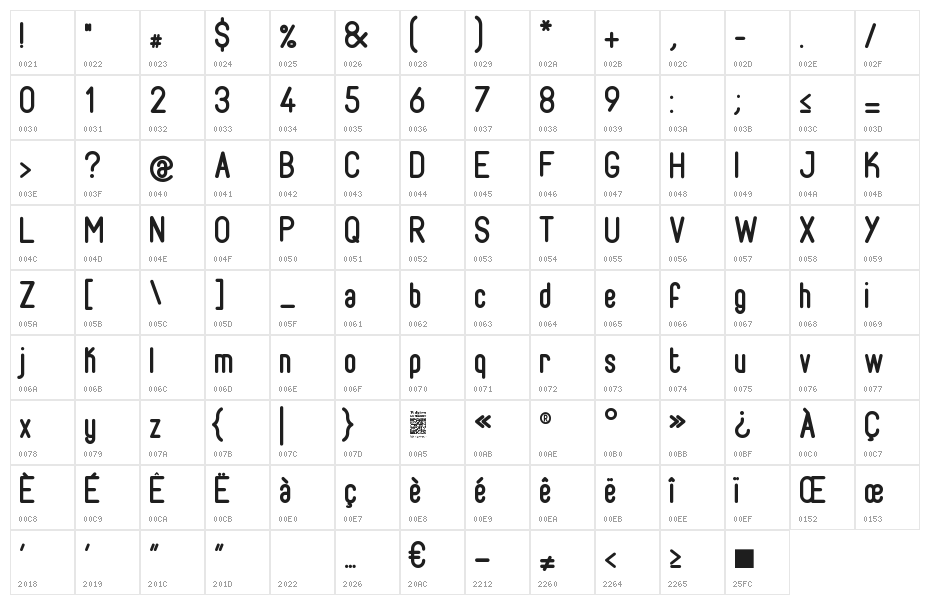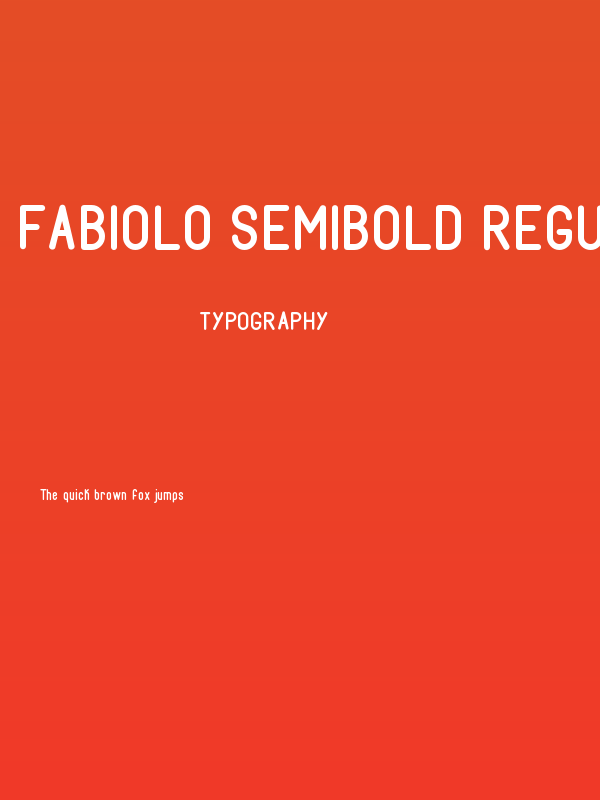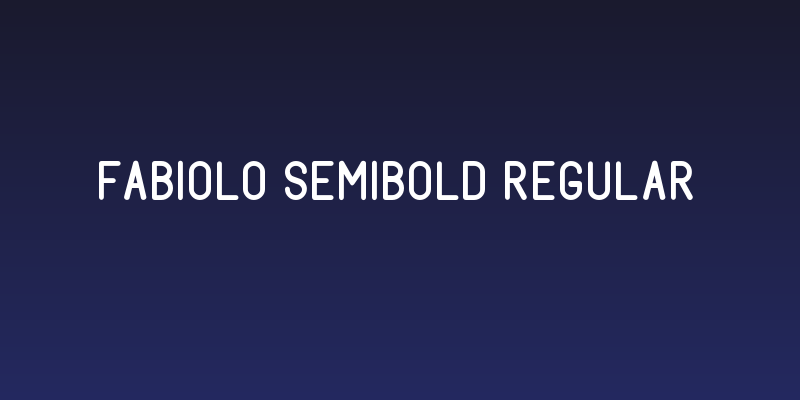
Fabiolo Semibold Regular Font
Fabiolo Semibold Regular Description
This font features a clean and modern sans-serif design with rounded edges, giving it a friendly and approachable appearance. The characters are evenly spaced, providing a balanced and harmonious look. The uppercase and lowercase letters maintain a consistent style, with a slight variation in stroke thickness that adds subtle interest without compromising readability. The numerals are clear and distinct, making them suitable for various applications. Special characters are included, maintaining the overall aesthetic of the font. This font is versatile, suitable for both digital and print media.